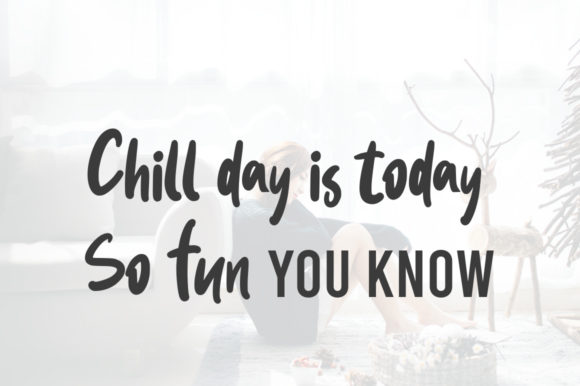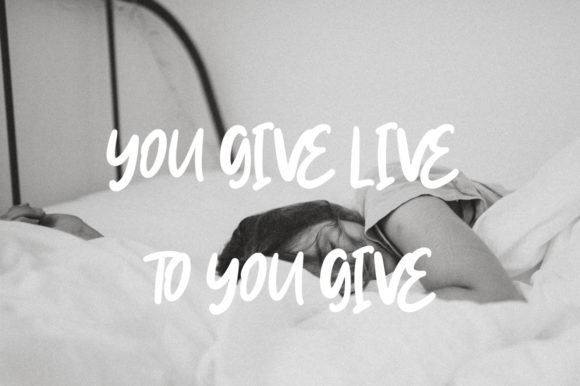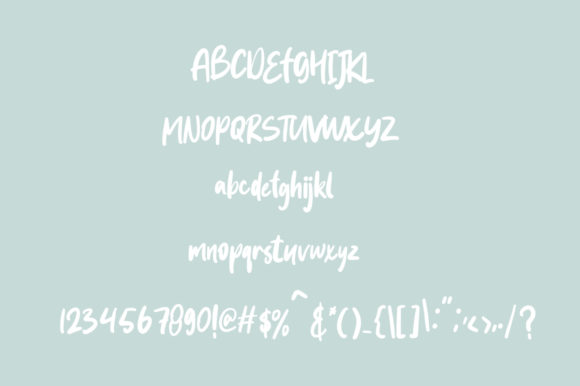
Introduction to Folewer Font
Have you ever stared at a blank canvas, wondering what to create next? For designers like you and me, this moment is a thrilling challenge. But what if you had the perfect tool to spark your creativity? Meet the Folewer Font, a sweet and cute script font that’s about to revolutionize your design projects.
This charming font is more than just a pretty face – it’s a design resource that will elevate your creative project to new heights. With its strong yet friendly shape, Folewer Font is the perfect match for a wide range of informal designs. Whether you’re working on a blog post, social media graphic, or digital invitation, this font is sure to add a touch of personality and whimsy to your design.
Key Features of Folewer Font
- High-quality design resource ideal for creative projects, with a unique and modern aesthetic.
- Designed to be highly versatile, making it suitable for a wide range of creative projects, from logos and branding to typography and graphics.
- Part of a comprehensive font family, offering a range of styles and weights to suit different design needs and preferences.
Honest Review: Folewer Font
I recently stumbled upon the Folewer Font and was excited to give it a try. As a designer, I’m always on the lookout for high-quality design resources that can elevate my creative project.
- ✨ Beautifully crafted characters: The Folewer Font features elegant, cursive characters that are perfect for titles, headings, and other design elements.
- ⚠️ Limited language support: Unfortunately, the Folewer Font only supports a limited number of languages, which may be a drawback for designers working on international projects.
- ⚠️ Not suitable for body text: Due to its decorative nature, the Folewer Font is best used for titles and headings, rather than body text.
Overall, I’m impressed with the Folewer Font’s high quality and versatility. While it may have some limitations, it’s a great addition to any designer’s arsenal, and I’m excited to see how it can elevate my future creative projects.
Tips for Getting the Most Out of Folewer Font
Use the Folewer Font with a transparent background to create a clean and minimalist design. Experiment with different font sizes and colors to find the perfect combination for your creative project. You can also use the Folewer Font in combination with other design resources to create a unique and eye-catching design.
The Folewer Font is a versatile design resource that can be used in a variety of creative projects, including logos, business cards, and marketing materials. It’s also a great option for creating social media graphics and presentations. With its high-quality design and free download, the Folewer Font is a valuable addition to any design library.
Is the Folewer Font suitable for high-resolution designs with transparent backgrounds?
Yes, the Folewer Font is designed to be high-quality and suitable for use in high-resolution designs with transparent backgrounds. The font has a crisp and clear appearance, making it perfect for use in creative projects that require a clean and modern look.